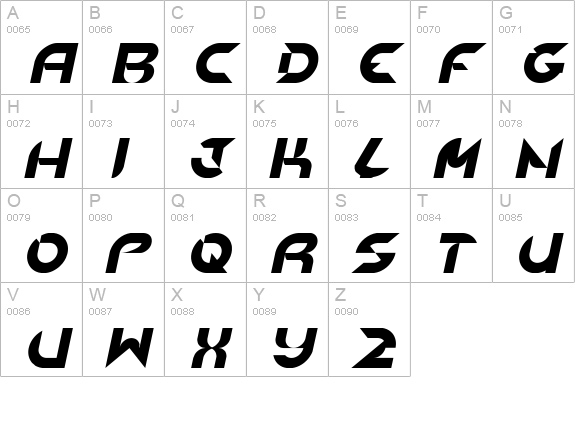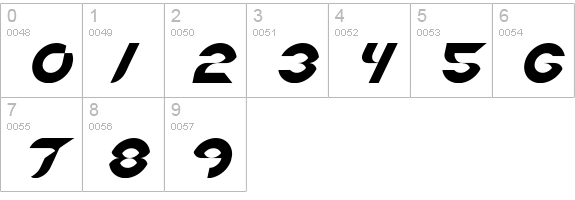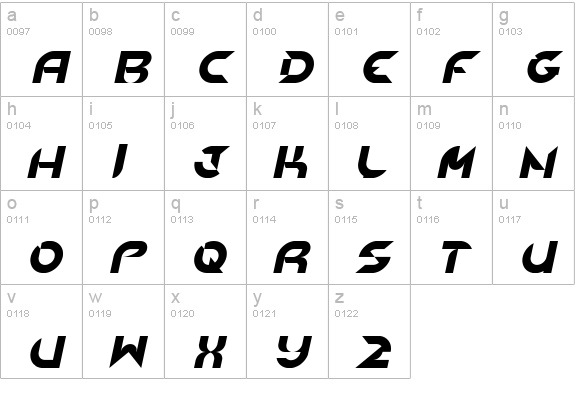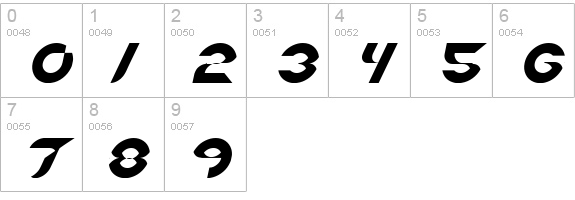
NewDigital Original Font Details
The NewDigital Original font is a modern and sleek typeface that exudes sophistication and elegance. Its clean lines and contemporary design make it perfect for a wide range of projects, from branding to web design. The sharp edges and bold strokes of this font give it a distinctive and eye-catching look that is sure to make your text stand out. One of the best things about the NewDigital Original font is that it is completely free to download at FontsMarket.com. This means that you can easily access this stylish and versatile font without having to spend a dime. Whether you are a designer looking to add a fresh touch to your projects or a business owner in need of a professional font for your branding, the NewDigital Original font is the perfect choice. With its sleek and modern design, the NewDigital Original font is sure to make a lasting impression on your audience. Download it for free today at FontsMarket.com and elevate your designs to the next level.